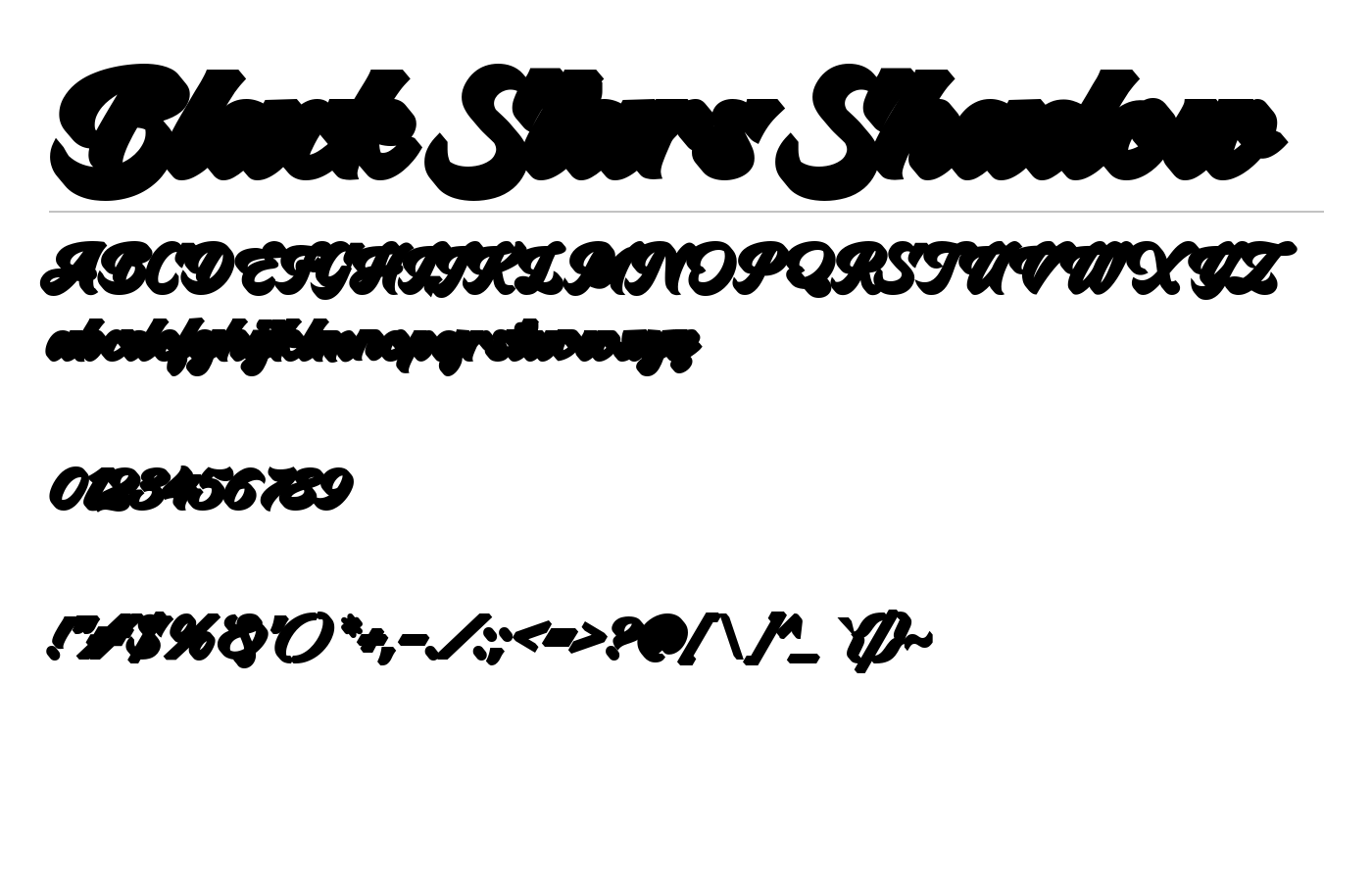
Black Stars Font is a bold, script-style typeface with a strong, dynamic flow and thick, connected letterforms that create a dramatic, energetic feel. Its heavy weight and cursive design make it ideal for eye-catching headlines, logos, and branding that aim to convey confidence and creativity. This font works best in display contexts where its lively personality and impactful presence can shine.
Black Stars Font
About Black Stars Font